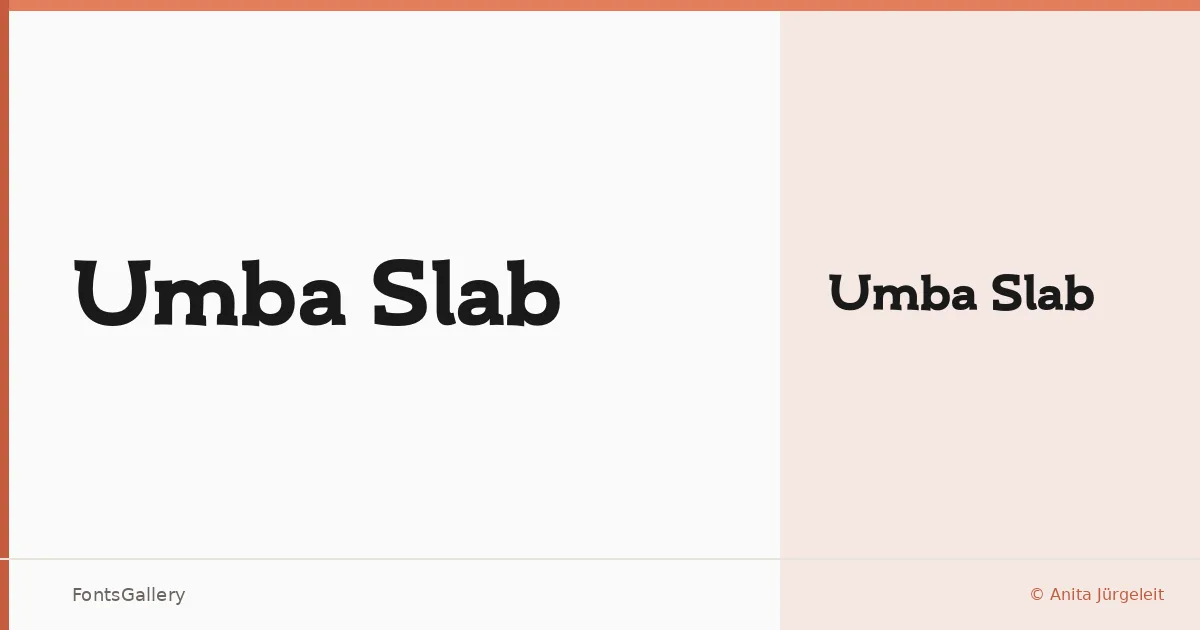
About Umba Slab Font
There is a confidence in the serifs here — chunky, deliberate, and built to hold a page. Umba Slab is the work of designer Anita Jürgeleit, and it arrives as a single cut: Bold, delivered in OTF format. The slab construction gives the letterforms a grounded, modern weight that reads as authority without tipping into heaviness.
This is a slab serif drawn for impact. The mood is bold and professional, with thick stroke contrast kept in check by the structural clarity of the letterforms. A single Bold style means it was designed with one purpose in mind — to sit at large sizes where the slab details can do their work. Latin character coverage is included.
It earns its place in headline settings, magazine covers, poster work, and anywhere branding or logo lockups need a typographic anchor with real presence. For body copy or supporting text, it pairs naturally with the clean geometry of Helvetica, or you can shift the tone by reaching for Ballmain, Alexandria, Batoshi, or Audex depending on the register you need.